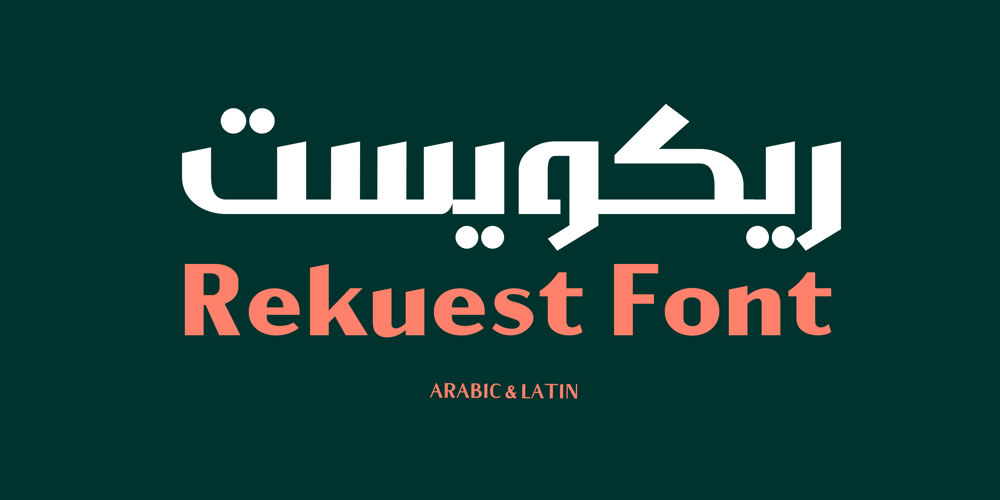
Rekuest
Rekuest font
Rekuest Font Family was designed by Osama A Ruzaiq and published by Kasheda Type. Rekuest contains 4 styles and family package options. “Rekuest” is an Arabic computer font that offers a range of impressive features. This font comes in various weights, allowing users to choose the thickness that suits their design needs. The typeface is characterized by its delicate and elegant appearanceThe sharp terminals of the font provide a modern and bold touch to the design. Particularly suitable for large texts, this font showcases its beauty and strength prominently. Thanks to its meticulous design, “Typefvis” ensures comfortable readability of the text, making it an ideal choice for design projects that require both aesthetics and clarity in presentation.